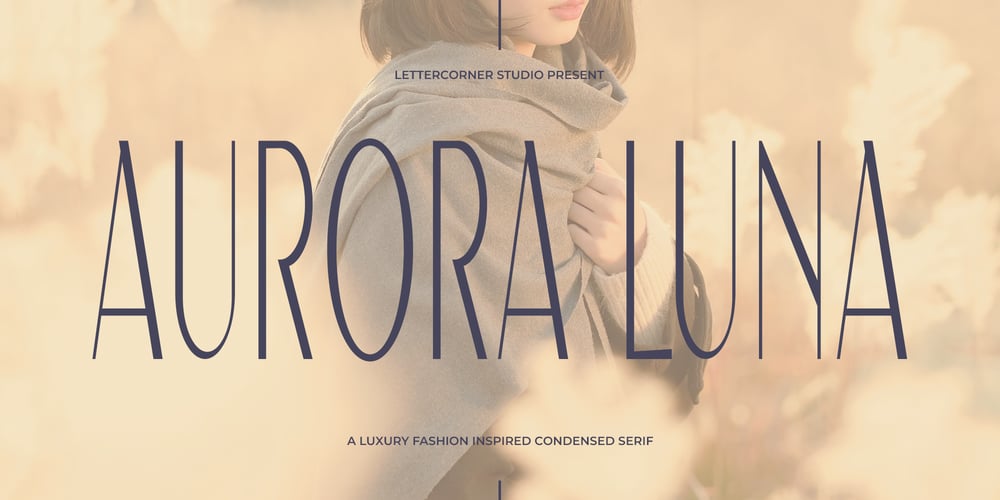
Aurora Luna
Aurora Luna font
Aurora Luna Font Family was designed by Muhammad Afif Ersya and published by Mevstory Studio. Aurora Luna contains 2 styles and family package options. Introducing our new typeface, Aurora Luna – A contemporary, luxury, fashion-inspired condensed serif, that comes with uppercase This is a display serif font that we recommend using in the following types of work; magazines (titles and layouts), logos and branding, invitations, quotes, blog headers, posters, advertising and body copy.